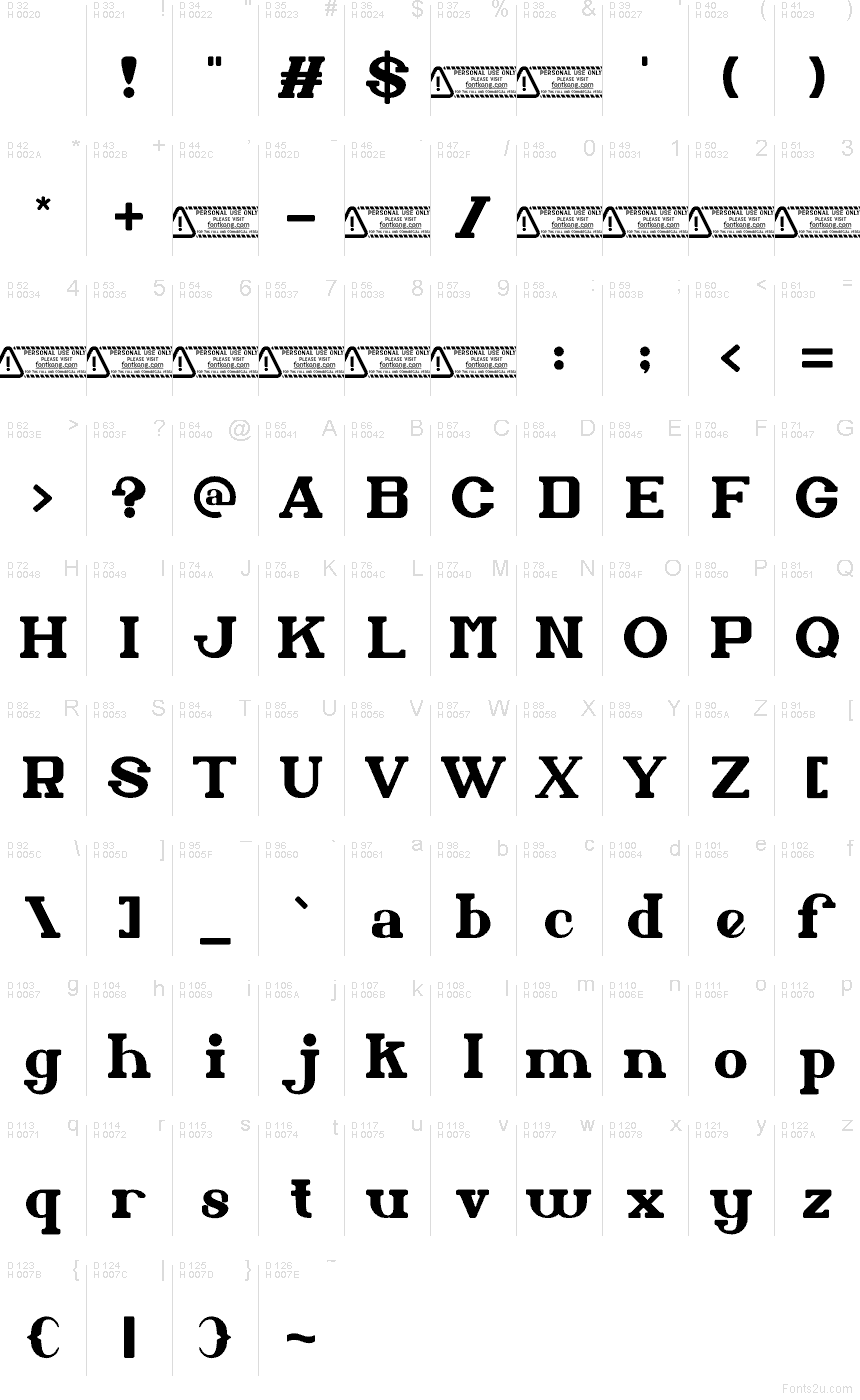
Arabella font by Kong Font is a free decorative serif typeface with a bold, inky presence that feels both theatrical and refined. Its chunky strokes, tight curves, and slightly compressed shapes give each word a sense of weight and drama, as if it’s been stamped onto the page. The heavy rhythm between letters creates a strong visual line, so even short titles look substantial and memorable.
Using Arabella, you can give logos, book covers, vintage posters, packaging, menus, and event invitations a rich, old-world flair that still feels sharp and contemporary. This free font really shines when set large, where its thick serifs and sculpted counters can breathe. Pair Arabella with a clean sans serif in smaller text to keep layouts readable while letting the headline steal the spotlight.